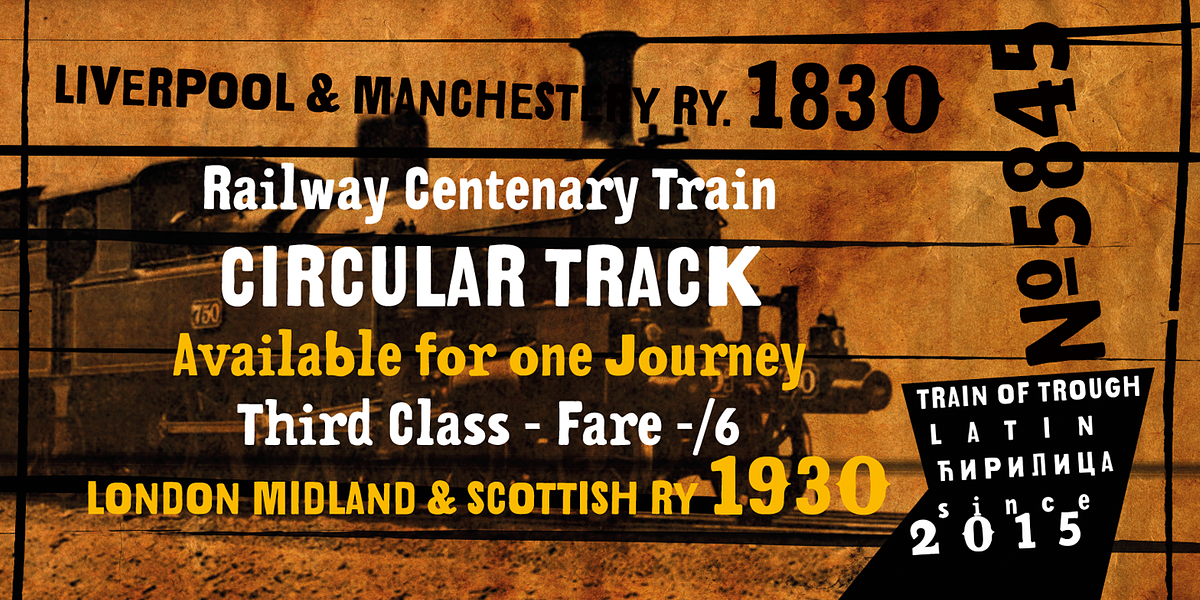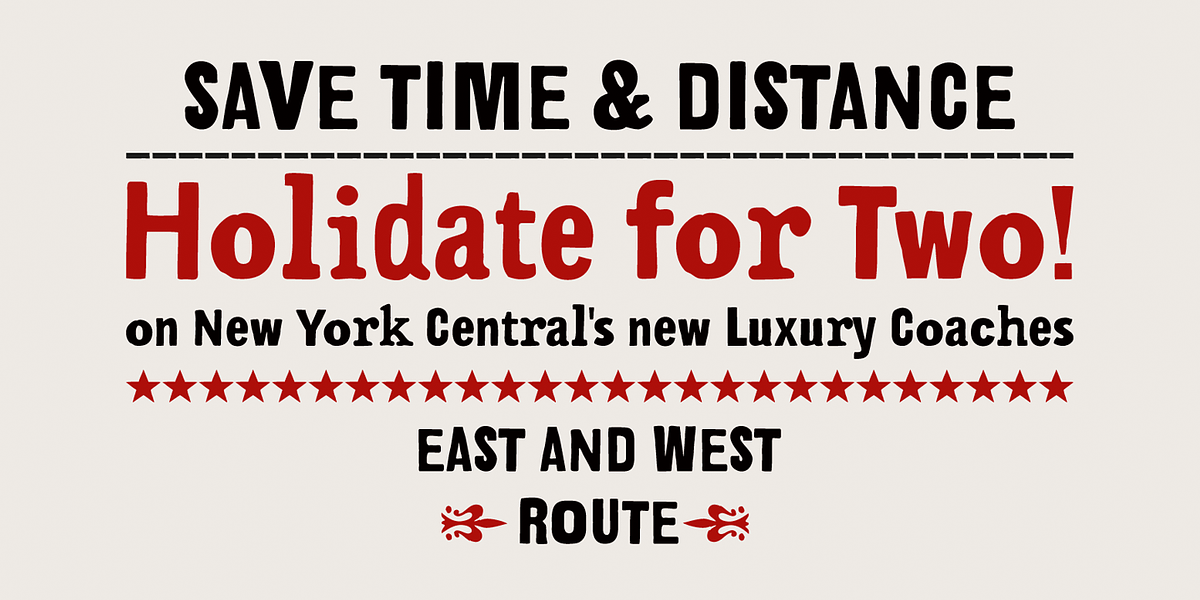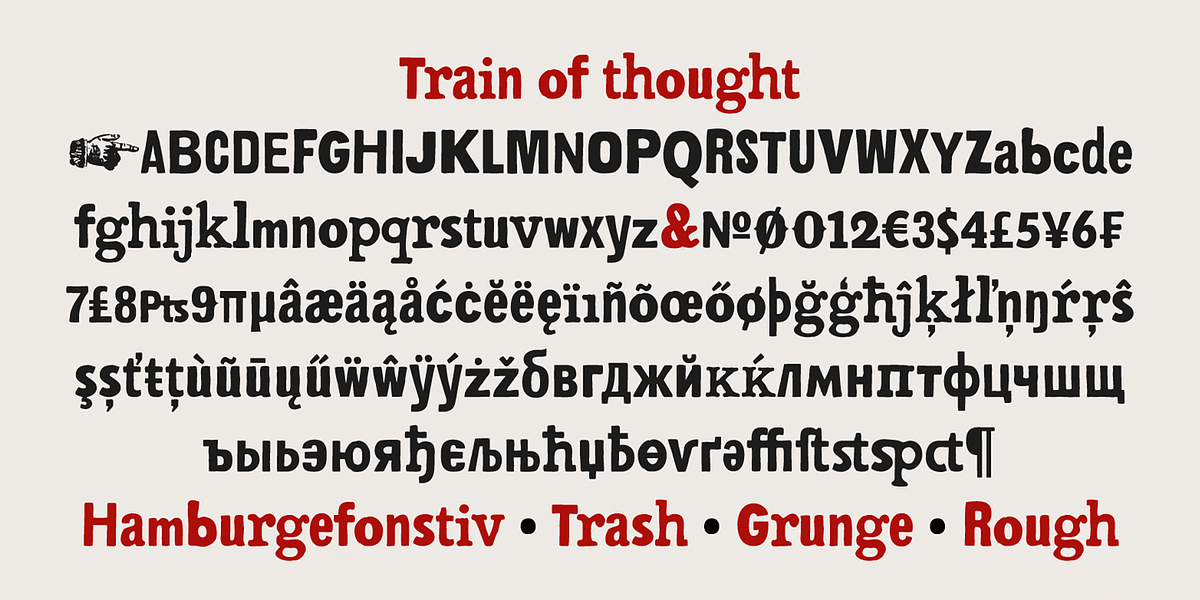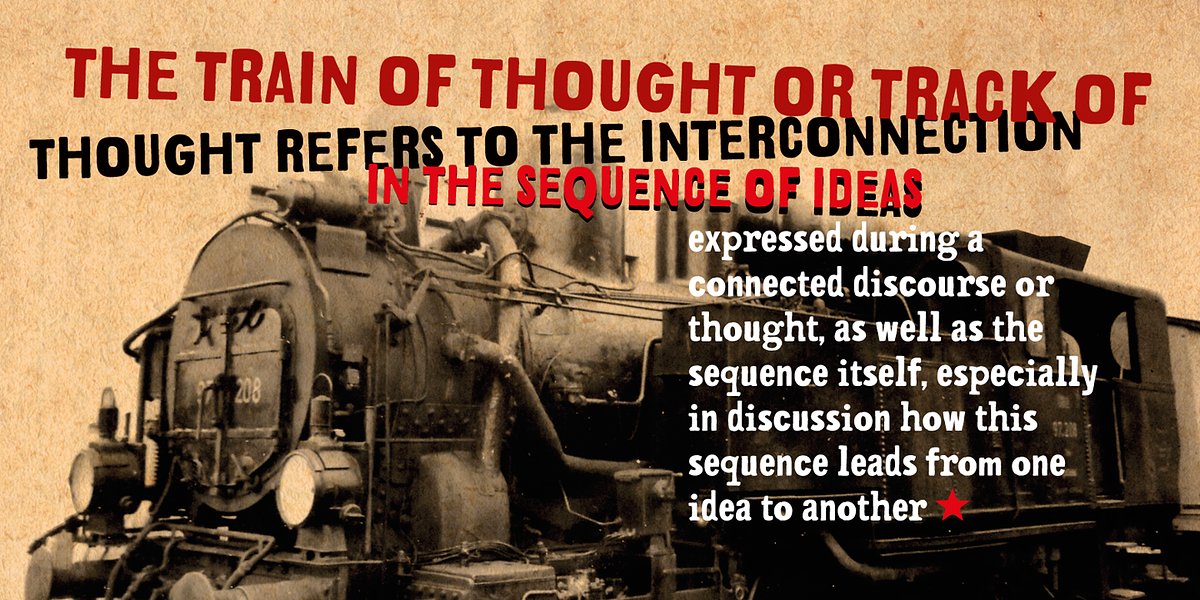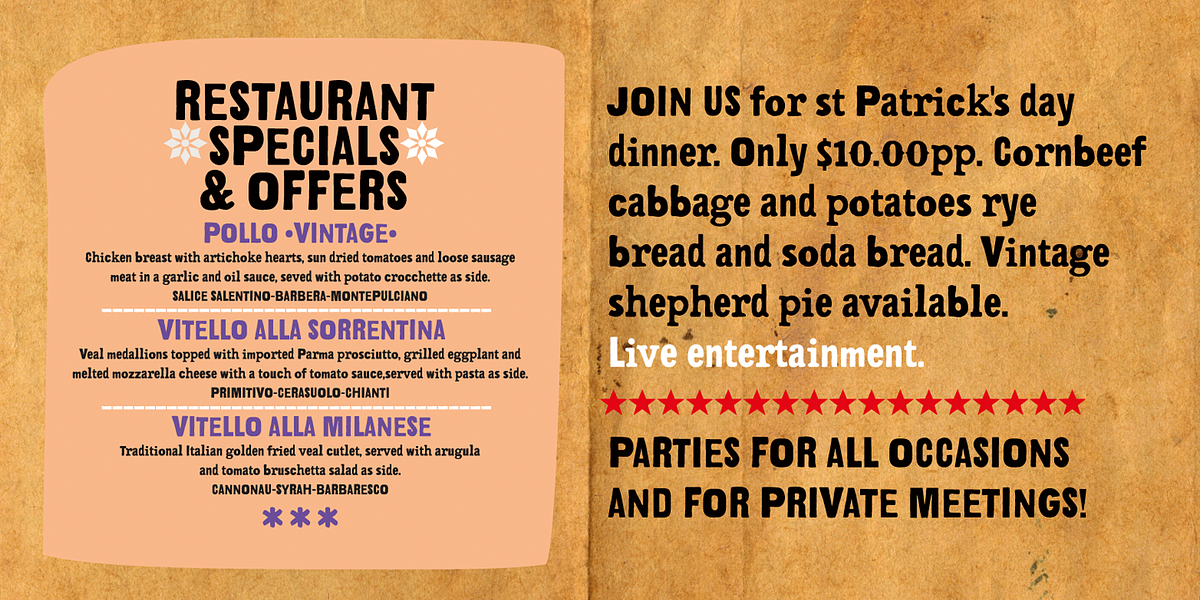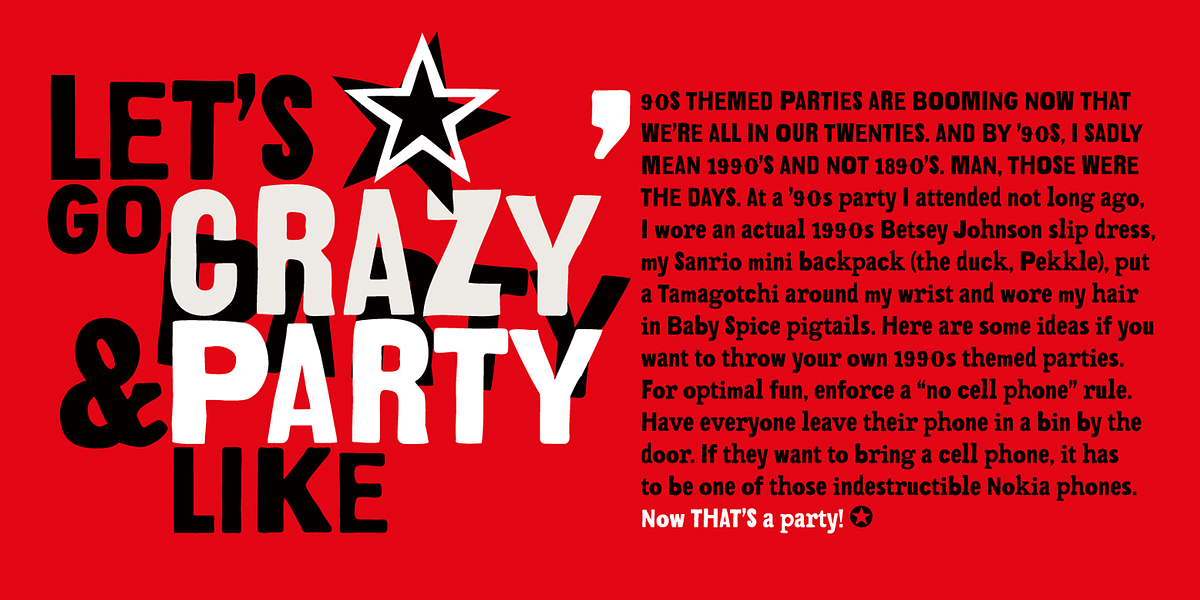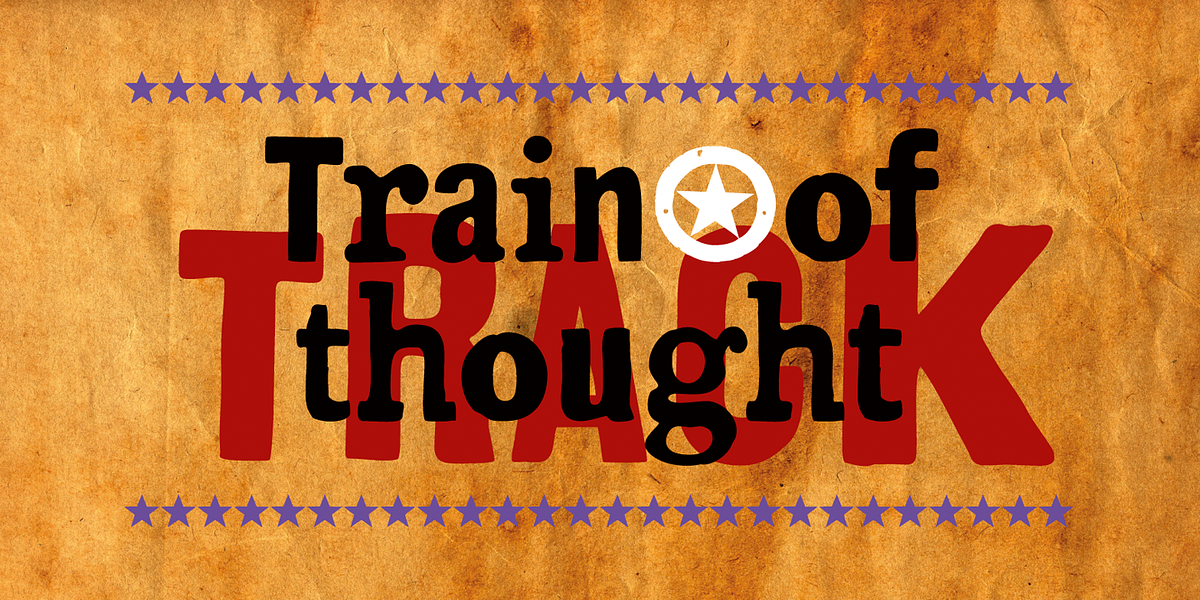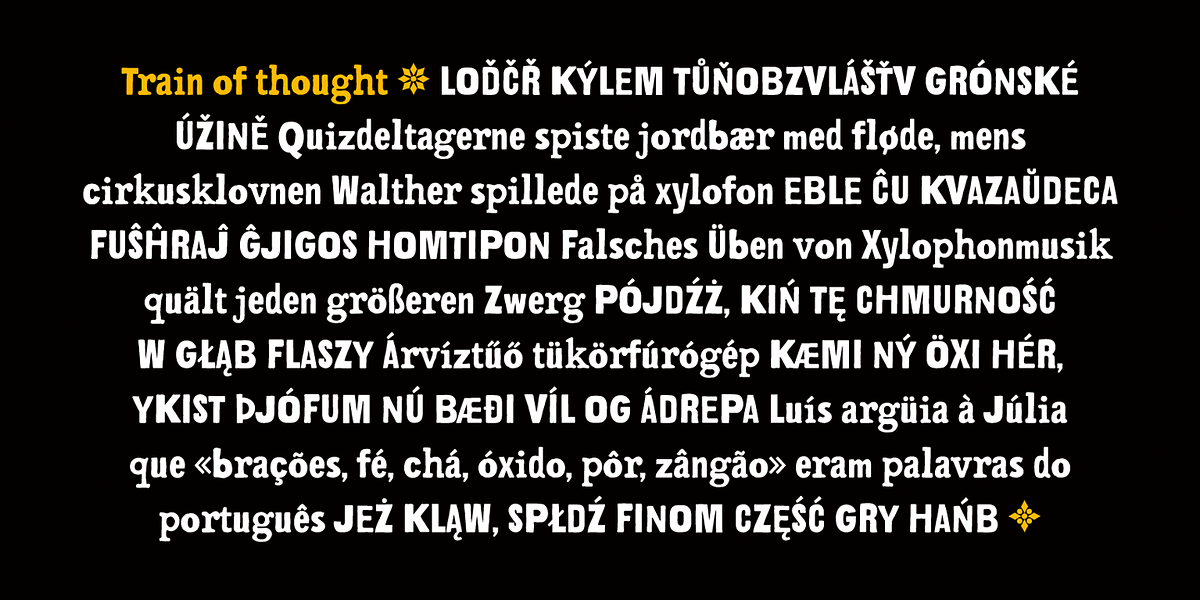
Train Of Thought
Train of Thought is a decorative font inspired by vintage and retro posters. It's designed to evoke a feeling of rustic Americana with its detailed stencil-like appearance. The font is suitable for creating logos, t-shirt designs, and highlighting key elements on billboards or in magazines. It includes all Latin and Cyrillic glyphs and a set of symbols for further emphasis.